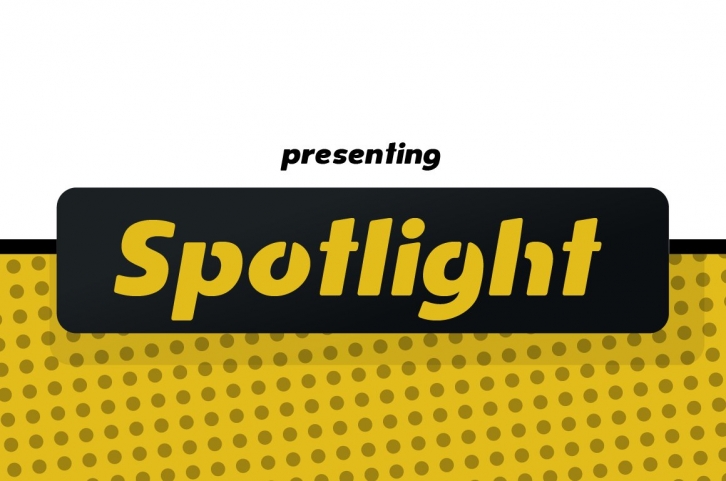
Spotlight - Sans Serif Regular with optional Stencils FONT Download
Spotlight is a gorgeous font that was realeased on April 15, 2020. The font can be used in many style contexts and design environments. Perfect for invitations, magazines, websites, logos, and more! It was designed by shaped fonts and the file size is 6.38 MB. Thanks for checking out this font!